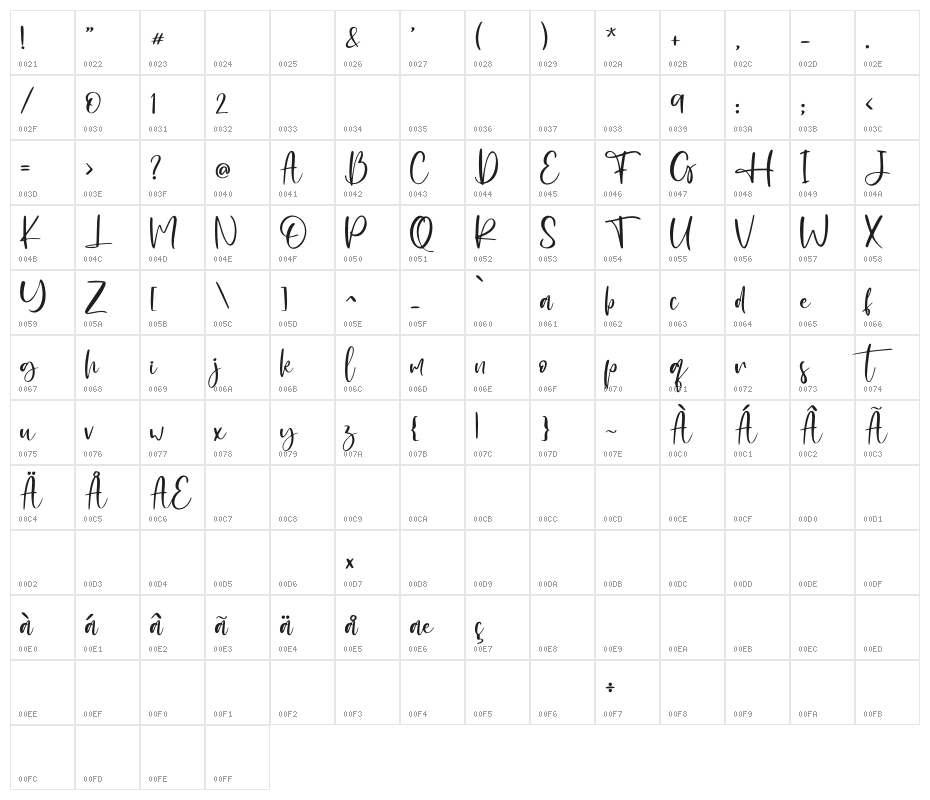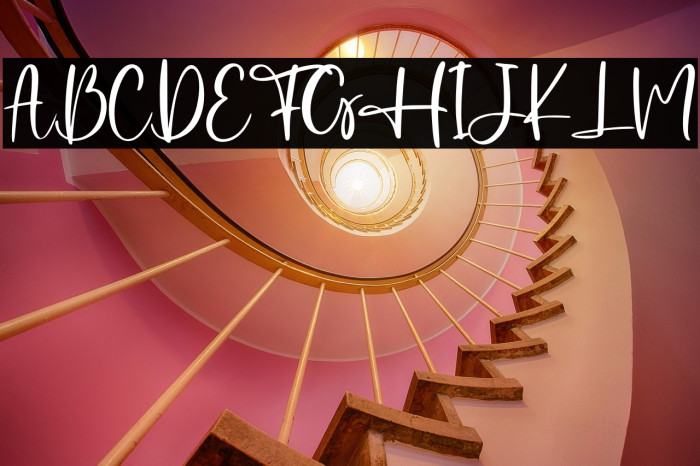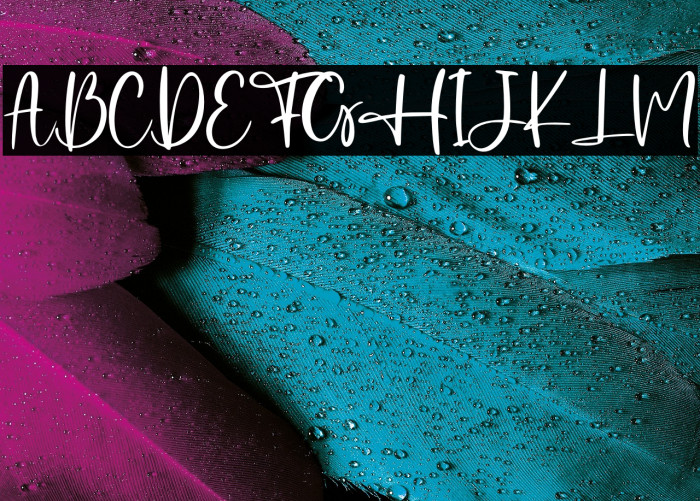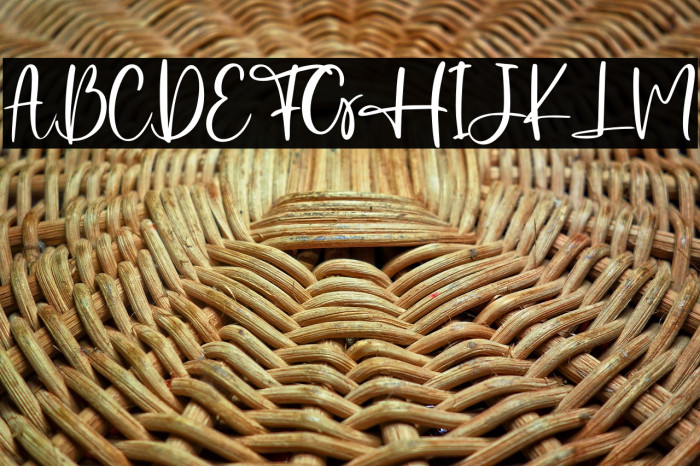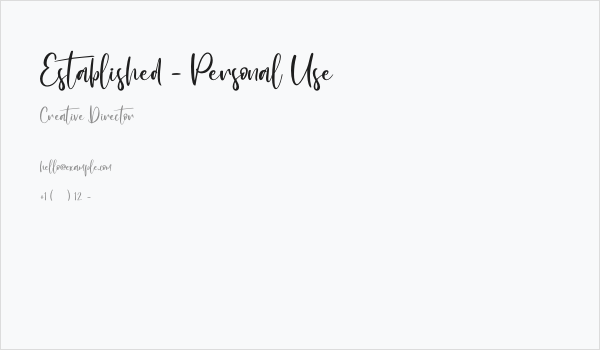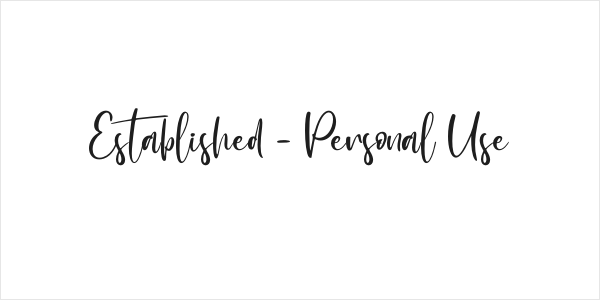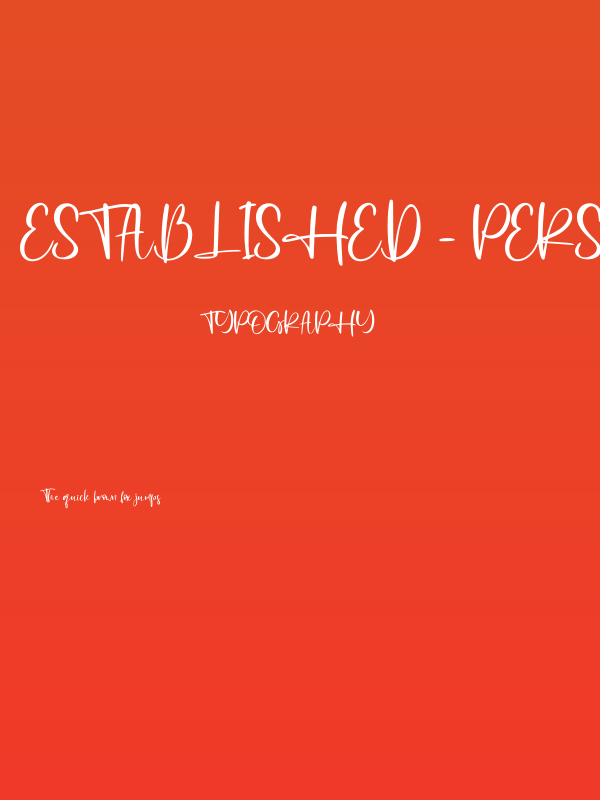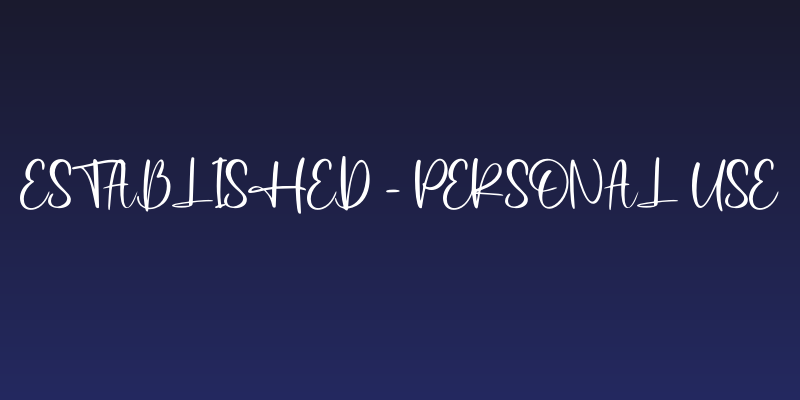
Established - Personal Use Font
Established - Personal Use Description
A playful, handwritten script font with tall, looping ascenders and descenders, variable stroke thickness, and a casual, modern feel. The characters are loosely spaced and feature a mix of connected and disconnected letterforms, giving it an organic, personal touch.
| Overall Style | Modern, Decorative, Playful |
| Use Case | Logos, Headlines, Invitations, Social media graphics |
| Proposed Projects | Invitations, greeting cards, personal branding, social media graphics, quotes, and informal posters. |